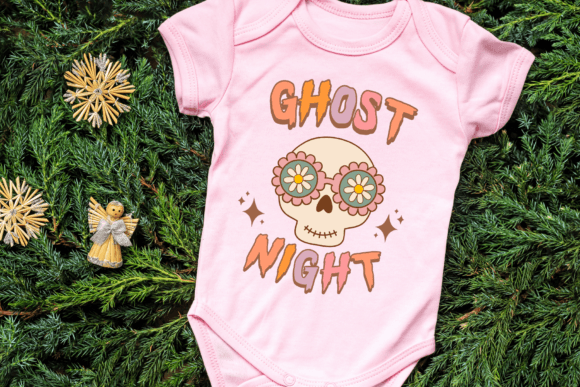
Master Horror Font: The Ultimate Choice for Spooky and Playful Designs
As the spookiest time of the year approaches, designers and creatives are on the lookout for the perfect font to add a touch of horror and playfulness to their projects. Look no further than Master Horror, a cool Halloween display font that embodies the perfect blend of playfulness and authenticity. In this article, we’ll dive into the world of Master Horror Font and explore its features, uses, and benefits.
What is Master Horror Font?
Master Horror is a unique and eye-catching display font designed specifically for Halloween-themed projects. Its bold and quirky style makes it perfect for adding a touch of spookiness to any design. Whether you’re creating a blog post, logo, branding, ad, invitation, greeting card, planner, photo album, or decoration, Master Horror Font is the ideal choice.
Key Features of Master Horror Font
- Playful and Authentic Design: Master Horror Font boasts a playful and authentic design that captures the essence of Halloween. Its bold and quirky style makes it perfect for creating eye-catching designs.
- Versatile: This font is versatile and can be used for a wide range of projects, from blog posts and logos to invitations and decorations.
- Easy to Read: Despite its bold and quirky style, Master Horror Font is easy to read, making it perfect for use in various designs.
- High-Quality: Master Horror Font is a high-quality font that is designed to deliver exceptional results.
Uses of Master Horror Font
Master Horror Font is perfect for a wide range of projects, including:
- Blog Posts: Add a touch of horror and playfulness to your blog posts with Master Horror Font.
- Logos and Branding: Create a unique and eye-catching logo for your business or brand with Master Horror Font.
- Ads: Make your ads stand out with Master Horror Font and grab the attention of your audience.
- Invitations and Greeting Cards: Create spooky and playful invitations and greeting cards for Halloween with Master Horror Font.
- Planners and Photo Albums: Add a touch of horror and playfulness to your planners and photo albums with Master Horror Font.
- Decorations: Use Master Horror Font to create spooky and playful decorations for Halloween.
Benefits of Using Master Horror Font
Using Master Horror Font offers several benefits, including:
- Unique and Eye-Catching Designs: Master Horror Font helps you create unique and eye-catching designs that stand out from the crowd.
- Increased Engagement: The playful and authentic design of Master Horror Font can help increase engagement and grab the attention of your audience.
- Time-Saving: With Master Horror Font, you can create professional-looking designs in no time, saving you time and effort.
Tips for Using Master Horror Font
Here are some tips for using Master Horror Font:
- Use it for Headings and Titles: Master Horror Font is perfect for use in headings and titles, adding a touch of horror and playfulness to your designs.
- Experiment with Colors: Experiment with different colors to find the perfect combination that matches your design.
- Pair it with Other Fonts: Pair Master Horror Font with other fonts to create a unique and eye-catching design.
- Use it for Seasonal Designs: Master Horror Font is perfect for seasonal designs, especially during Halloween.
Master Horror Font is a cool Halloween display font that embodies playfulness and authenticity. Its bold and quirky style makes it perfect for adding a touch of horror and playfulness to any design. With its versatility, ease of use, and high-quality design, Master Horror Font is the perfect choice for all your favorite projects. So, add it to any of your designs and enjoy the results!
- What is Master Horror Font?: Master Horror Font is a cool Halloween display font designed specifically for Halloween-themed projects.
- Is Master Horror Font easy to read?: Yes, despite its bold and quirky style, Master Horror Font is easy to read.